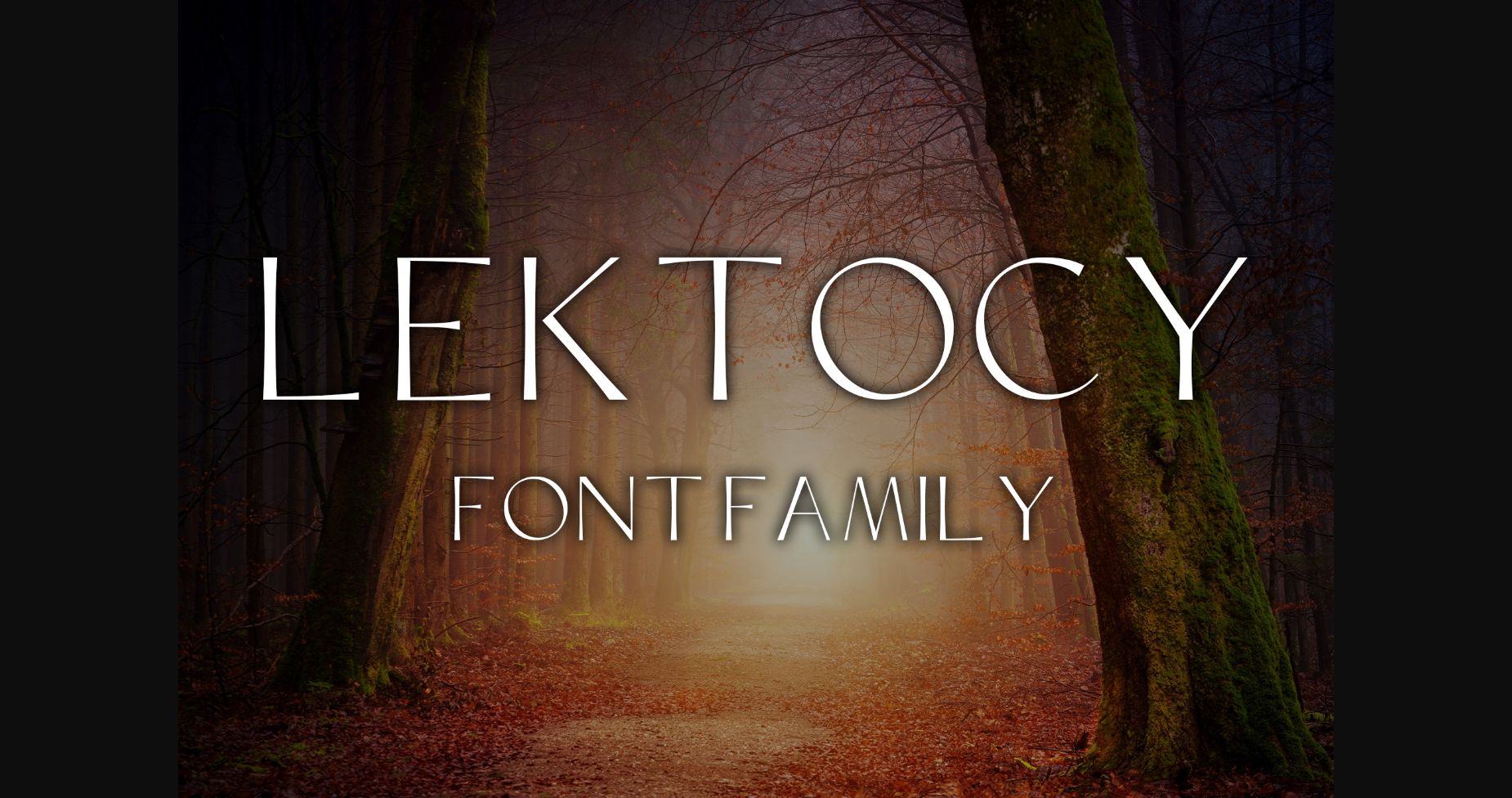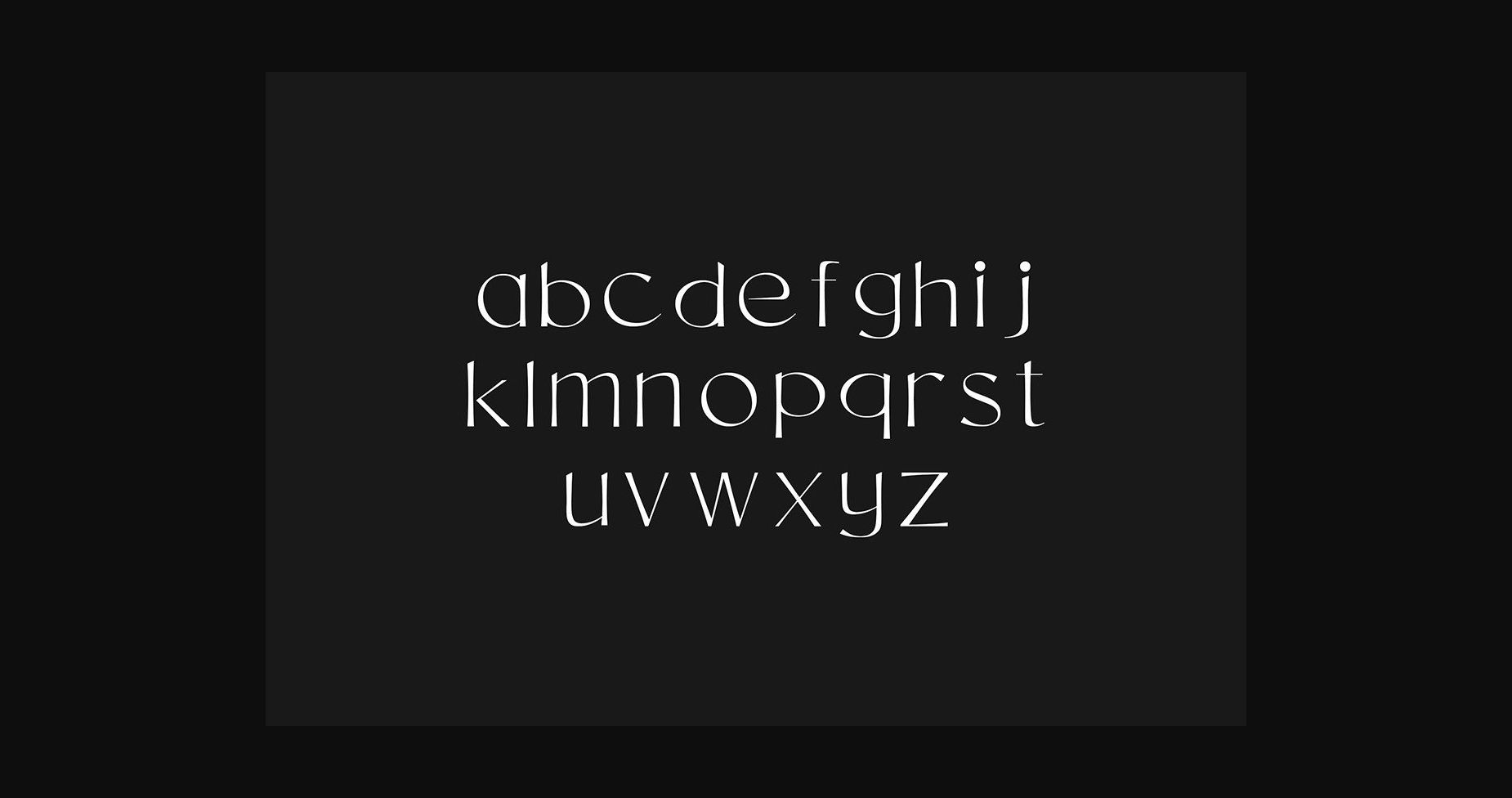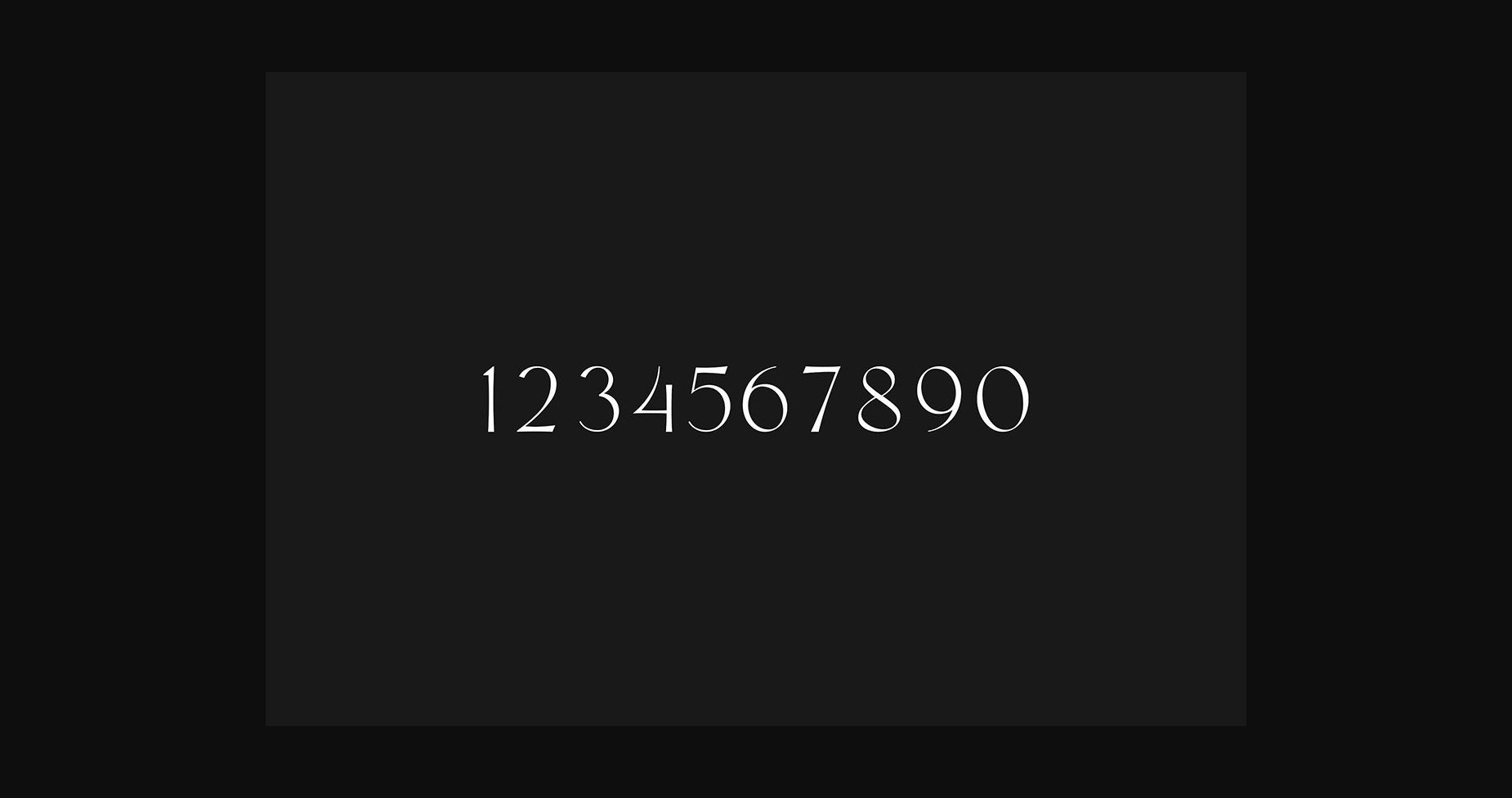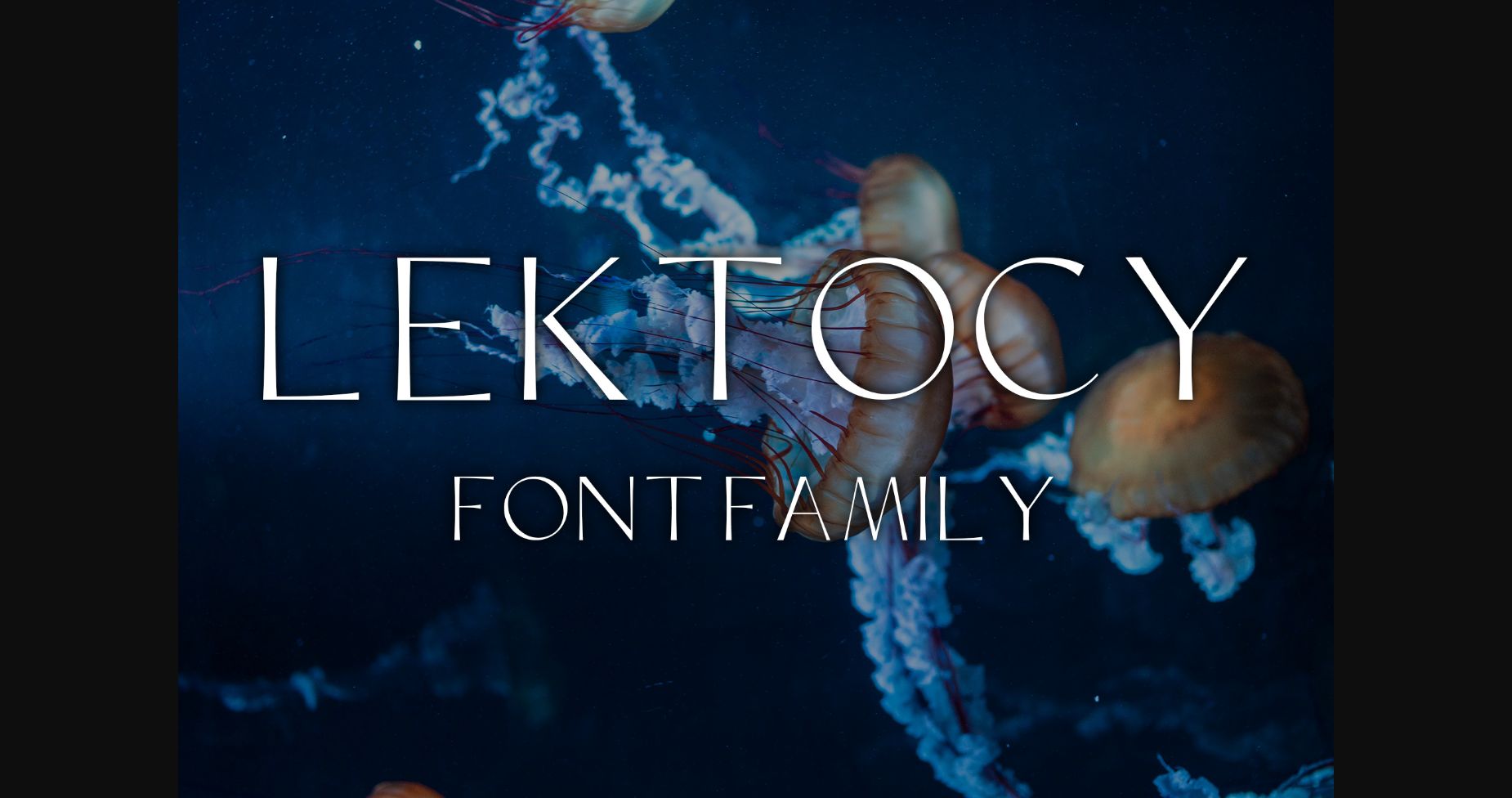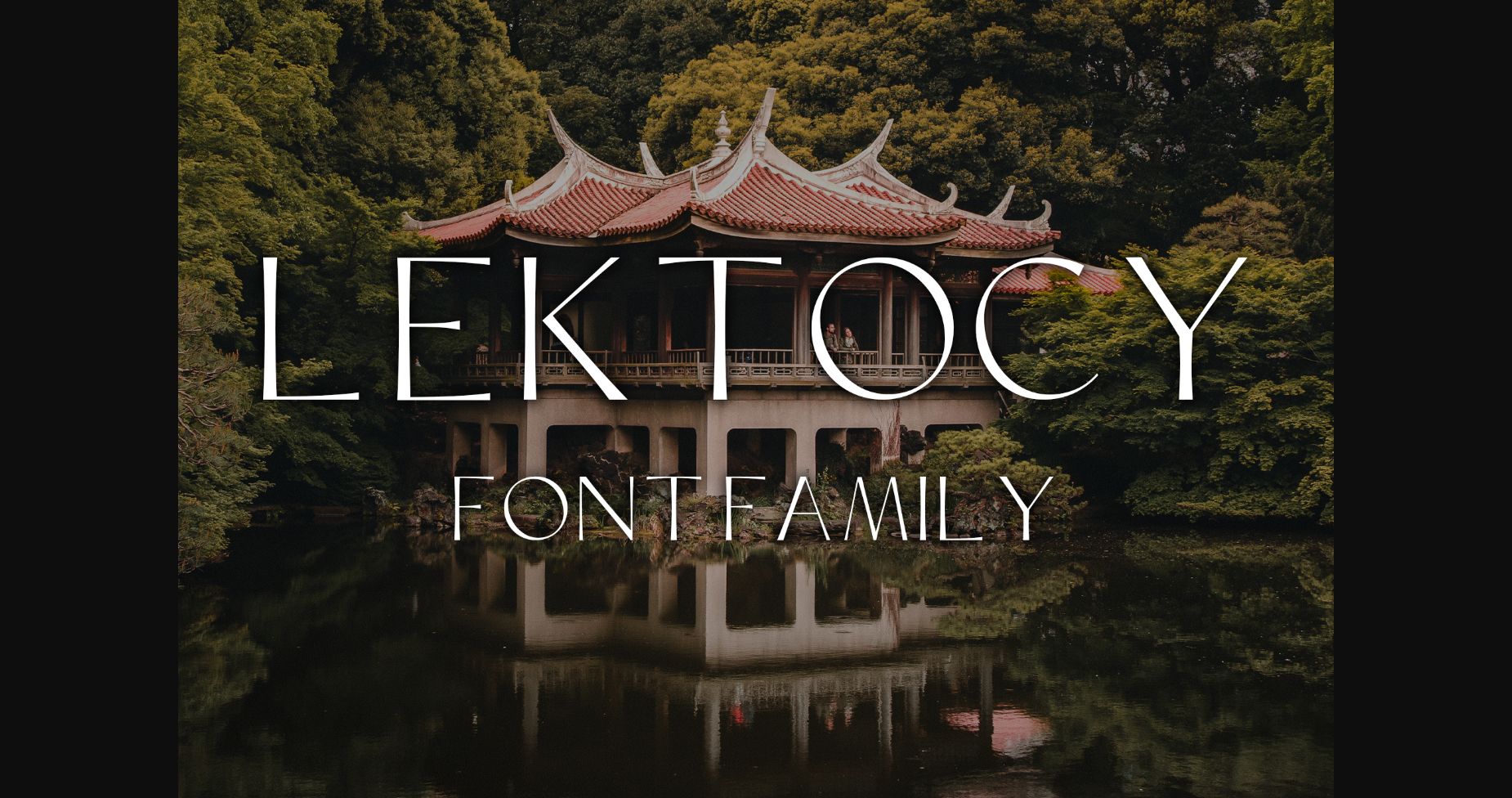
Lektocy Font
About Lektocy Font
Lektocy is a simple and neat sans serif font. Incredibly versatile, this font is perfect for a wide range of design ideas.